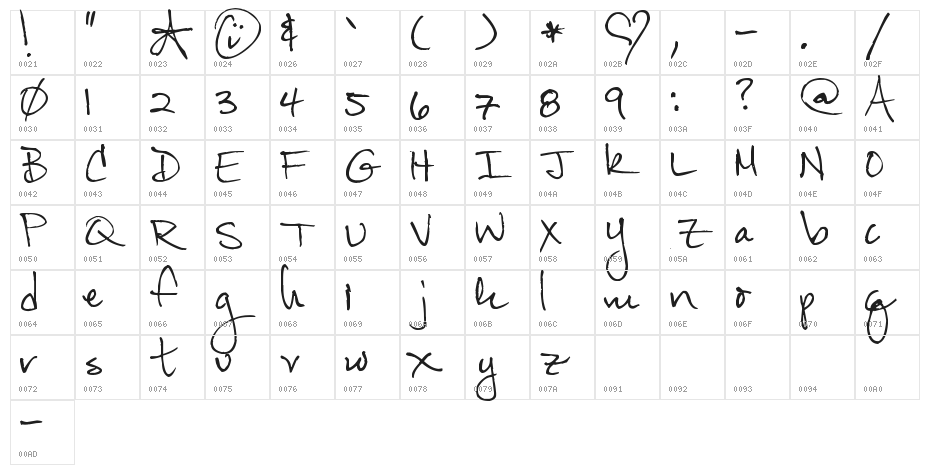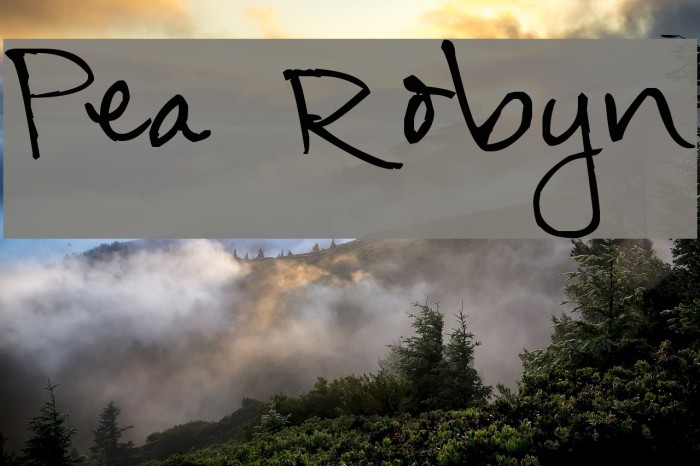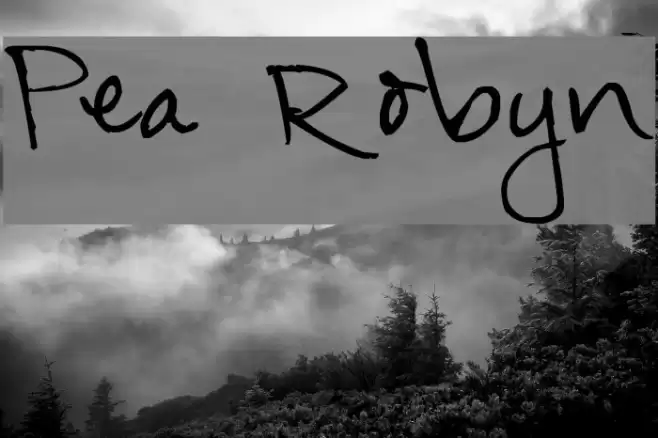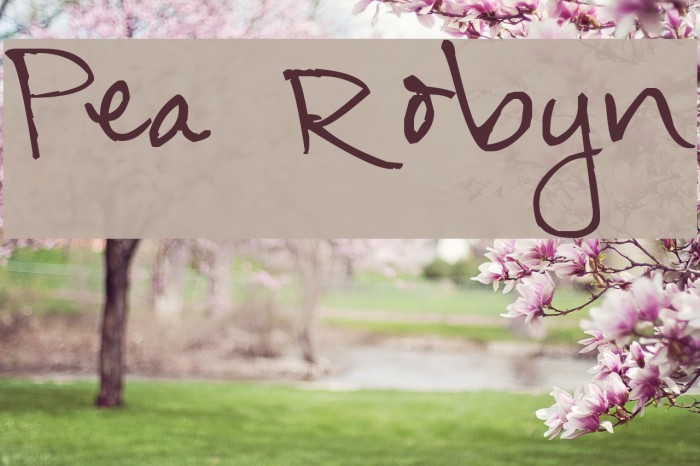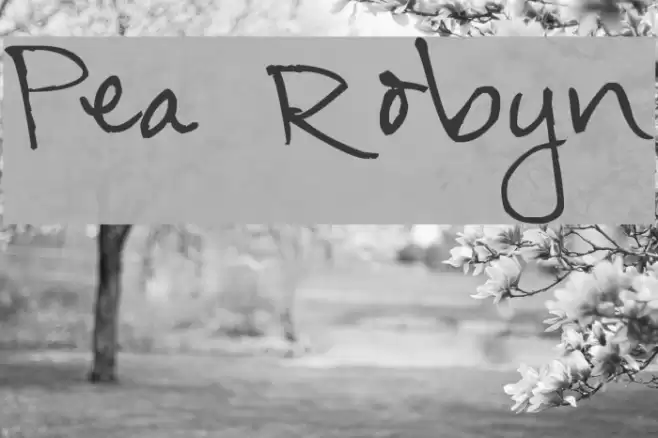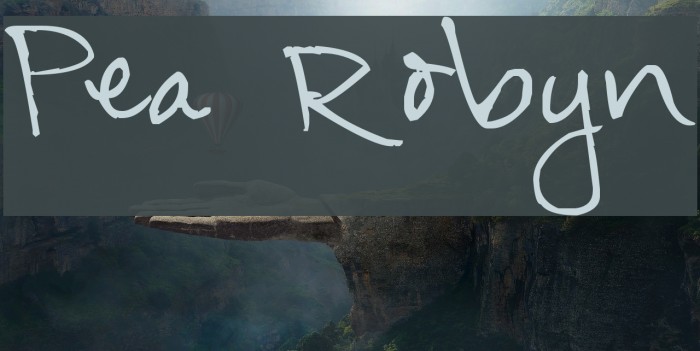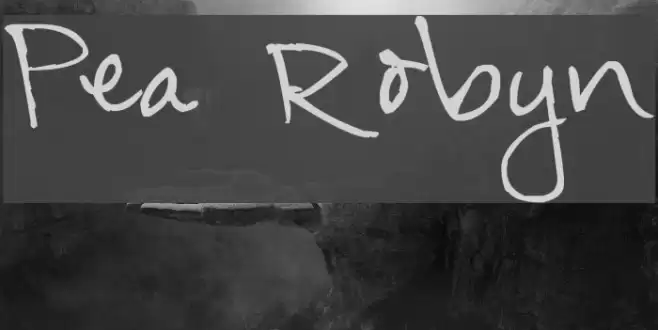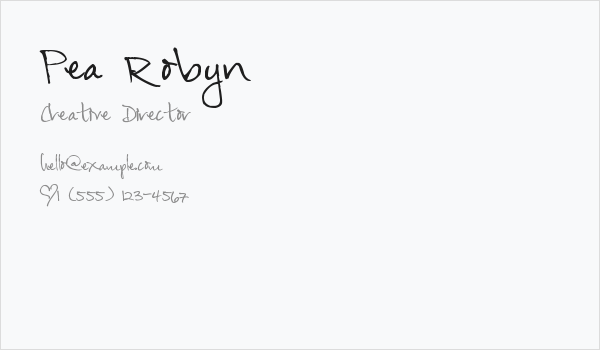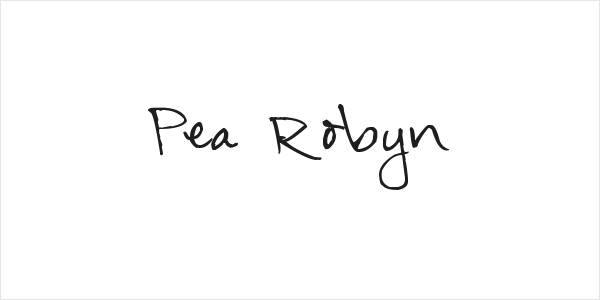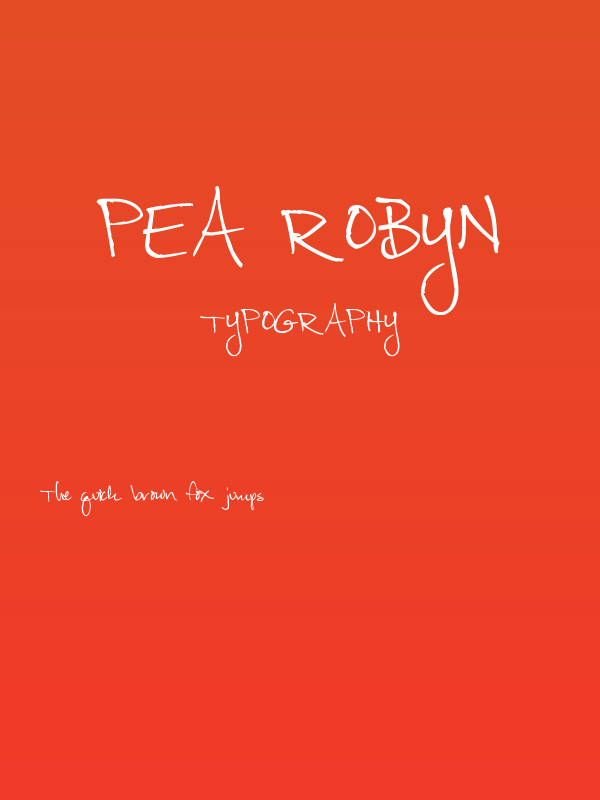
Pea Robyn Font
Pea Robyn Description
This font exudes a casual and playful handwritten style, characterized by its loose and flowing strokes. The letters vary in size and angle, giving it a dynamic and informal appearance. The uppercase letters are bold and slightly irregular, while the lowercase letters maintain a consistent flow with occasional loops and curves. Numbers and special characters follow the same handwritten aesthetic, adding to the font's overall charm. The font's organic and spontaneous feel makes it ideal for projects that require a personal touch.
| Proposed Projects | Ideal for greeting cards, personal notes, informal invitations, and creative branding projects. |